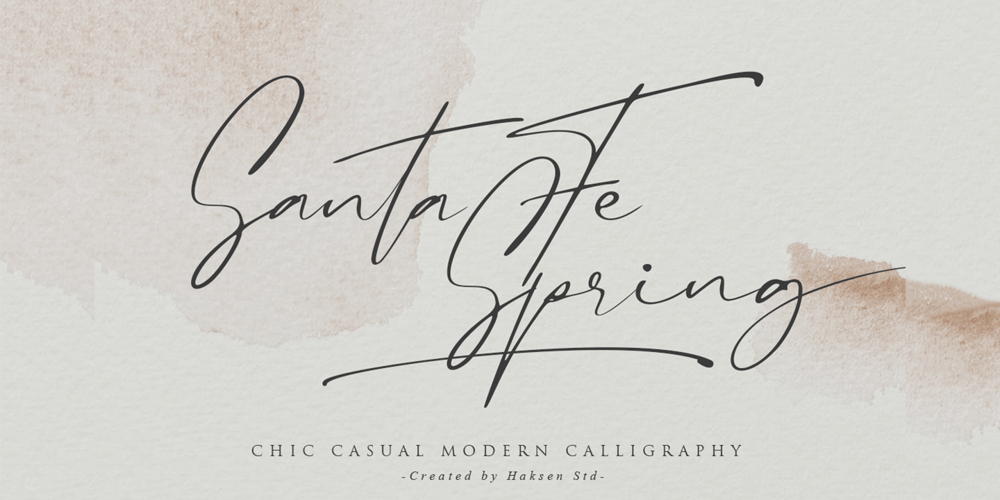
Santa Fe Spring
Santa Fe Spring font
Santa Fe Spring Font Family was designed by Sarwo Edhi Prayitno and published by Haksen. Santa Fe Spring contains 1 styles and family package options. Santa Fe Spring is a chic casual modern calligraphy script font. It is perfect for branding, signature, wedding invitation, promotion, product packaging, and other needs. You will get full set of lowercase and uppercase letters, numerals and punctuation, multilingual symbols, lowercase beginning and ending swashes, ligatures and extra swashes that giving realistic hand-lettered style.In order to use the beautiful swashes, you need a program that supports OpenType features such as Adobe Illustrator, Adobe Photoshop, Adobe Indesign and Corel Draw.Thanks and have a wonderful day,Haksen